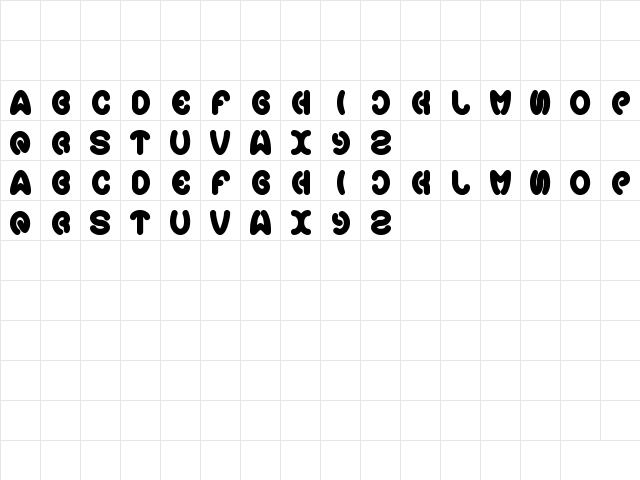
earthheart Regular
Design Context for earthheart Typeface
earthheart is a composed and adaptable typeface that performs quietly and consistently across a wide range of design contexts.